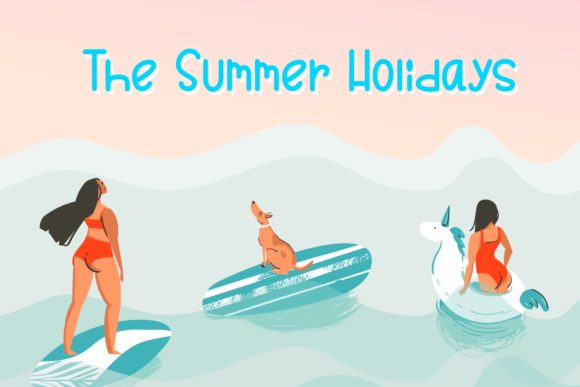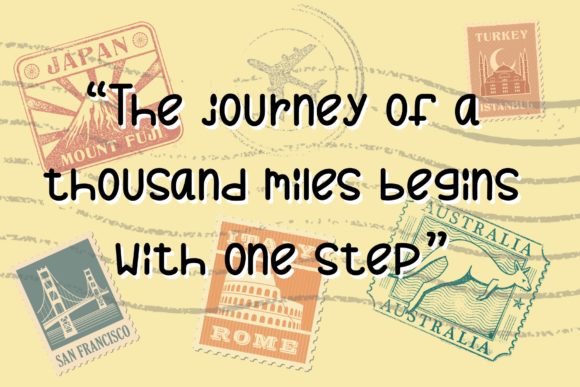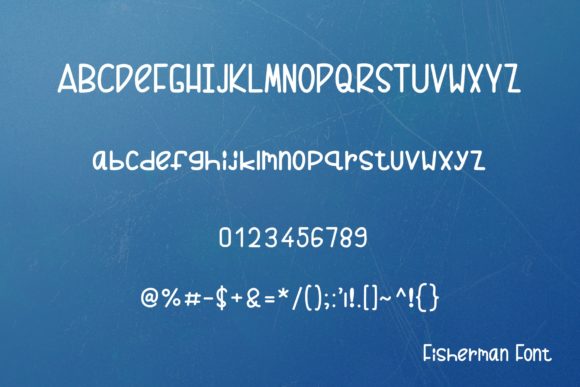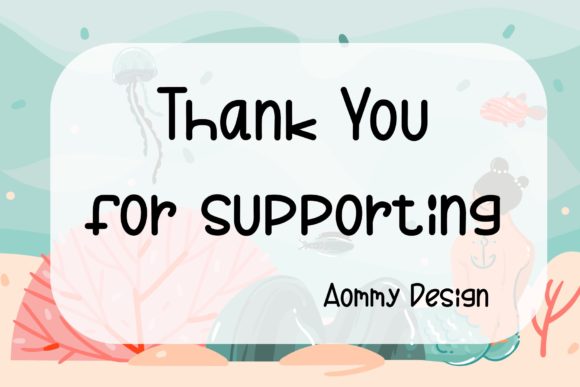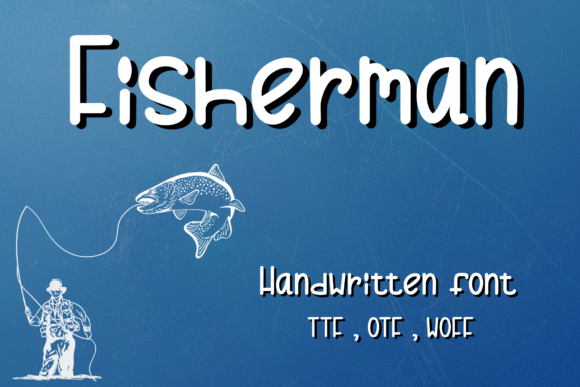
Discover the Charm of Fisherman Font: A Sweet and Quirky Handwritten Delight
Are you on the hunt for a font that adds a touch of warmth and personality to your designs? Look no further than the Fisherman font, a sweet, neat, and friendly handwritten font that’s sure to capture your heart. With its unique blend of playfulness and sophistication, Fisherman is the perfect choice for designers and crafters looking to add a little extra something special to their projects.
The Characteristics of Fisherman Font
So, what makes Fisherman font so special? For starters, its handwritten nature gives it a distinctly personal and approachable feel. The letters are carefully crafted to resemble the imperfect, yet charming, qualities of handwriting, making it perfect for designs that require a human touch. Additionally, Fisherman’s quirky personality shines through in its subtle irregularities and distinctive letterforms, setting it apart from more traditional fonts.
One of the standout features of Fisherman font is its incredible versatility. Whether you’re working on a logo, a poster, a website, or a craft project, Fisherman looks incredibly adept in a wide variety of contexts. Its neat and friendly demeanor makes it suitable for designs that require a professional edge, while its quirky side ensures it never comes across as too formal or boring.
Why Designers and Crafters Love Fisherman Font
Designers and crafters alike are drawn to Fisherman font for a variety of reasons. Here are just a few:
- Emotional Connection: Fisherman font has a way of creating an emotional connection with readers. Its friendly and approachable nature makes it perfect for designs that aim to engage, inspire, or even comfort.
- Unique Personality: In a world where many fonts can feel generic or overused, Fisherman’s unique personality helps designs stand out from the crowd.
- Ease of Use: Despite its distinctive character, Fisherman font is incredibly easy to read and use, making it suitable for a wide range of applications, from body text to headings.
- Crafting and DIY Projects: For crafters and makers, Fisherman font adds a personal touch to handmade projects, such as labels, cards, and journal entries.
Using Fisherman Font in Your Designs
So, how can you incorporate Fisherman font into your designs? Here are a few ideas to get you started:
- Logos and Branding: Use Fisherman font to create a logo or brand identity that feels friendly, approachable, and unique.
- Posters and Flyers: Add a touch of whimsy to your posters and flyers with Fisherman font, perfect for promoting events, products, or services.
- Web Design: Incorporate Fisherman font into your website design to create a warm and welcoming user experience.
- Crafting and DIY: Use Fisherman font to add a personal touch to your handmade crafts, such as sewing patterns, recipe cards, or journal entries.
In conclusion, Fisherman font is a sweet, neat, and friendly handwritten font that’s perfect for designers and crafters looking to add a little extra charm to their projects. With its unique blend of playfulness and sophistication, Fisherman is sure to capture your heart and inspire your creativity. Whether you’re working on a logo, poster, website, or craft project, Fisherman font is an excellent choice for anyone looking to add a touch of personality and whimsy to their designs.